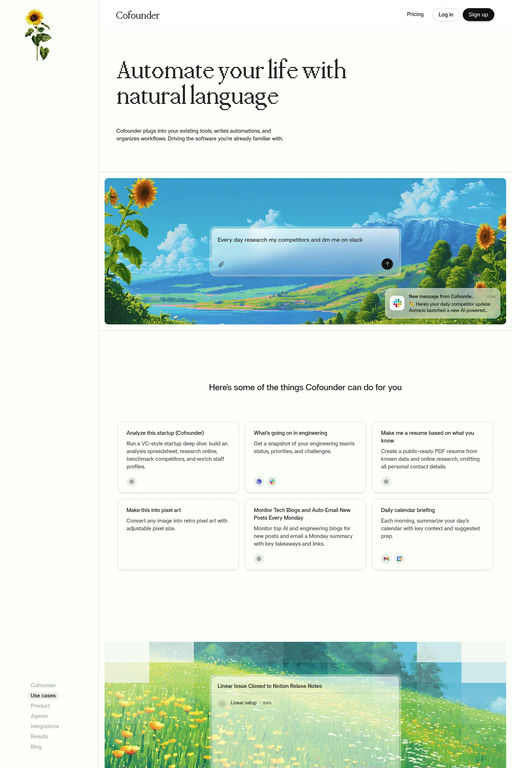
Explore af Another Sans, a contemporary neo-grotesk sans-serif typeface with 18 styles and variable fonts. Discover its clean lines and elegant simplicity.